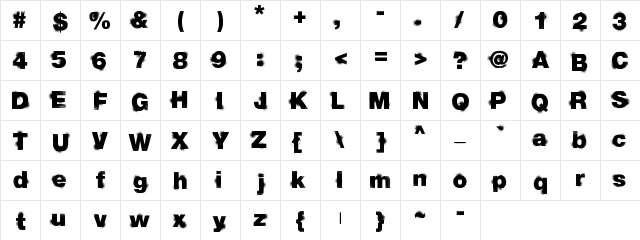
sprayvetica Regular Free Font
sprayvetica Regular
Foundry: 33third
Designer: Max Infeld
Design Context for sprayvetica
sprayvetica is a composed and adaptable typeface that performs quietly and consistently across a wide range of design contexts.